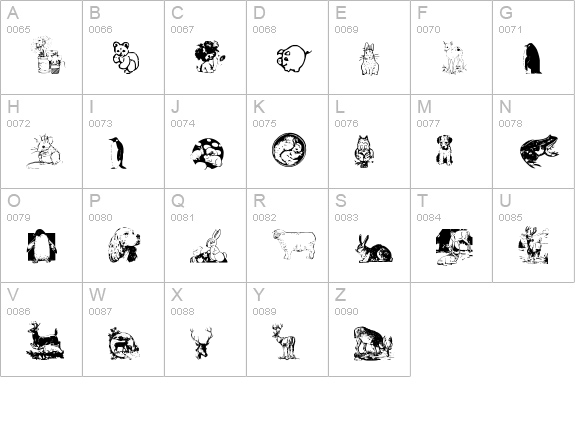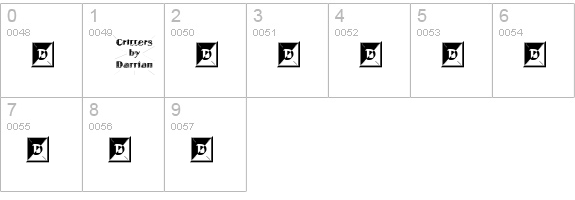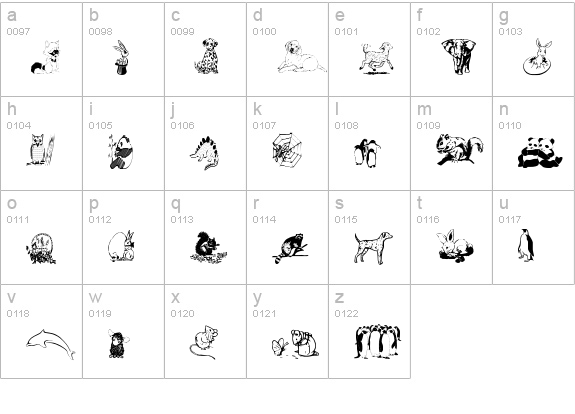
Critters by Darrian Font Details
Critters by Darrian is a whimsical and playful font that is perfect for adding a touch of fun to your designs. With its quirky and hand-drawn style, this font is sure to bring a smile to your audience. The unique characters and charming details make Critters a great choice for greeting cards, invitations, posters, and more. What makes Critters even more appealing is that it is available for free download at FontsMarket.com. This means you can unleash your creativity without any cost, making it a fantastic resource for both personal and commercial projects. Don't miss out on the opportunity to add a touch of charm and personality to your designs with Critters by Darrian. Download it now and let your imagination run wild!